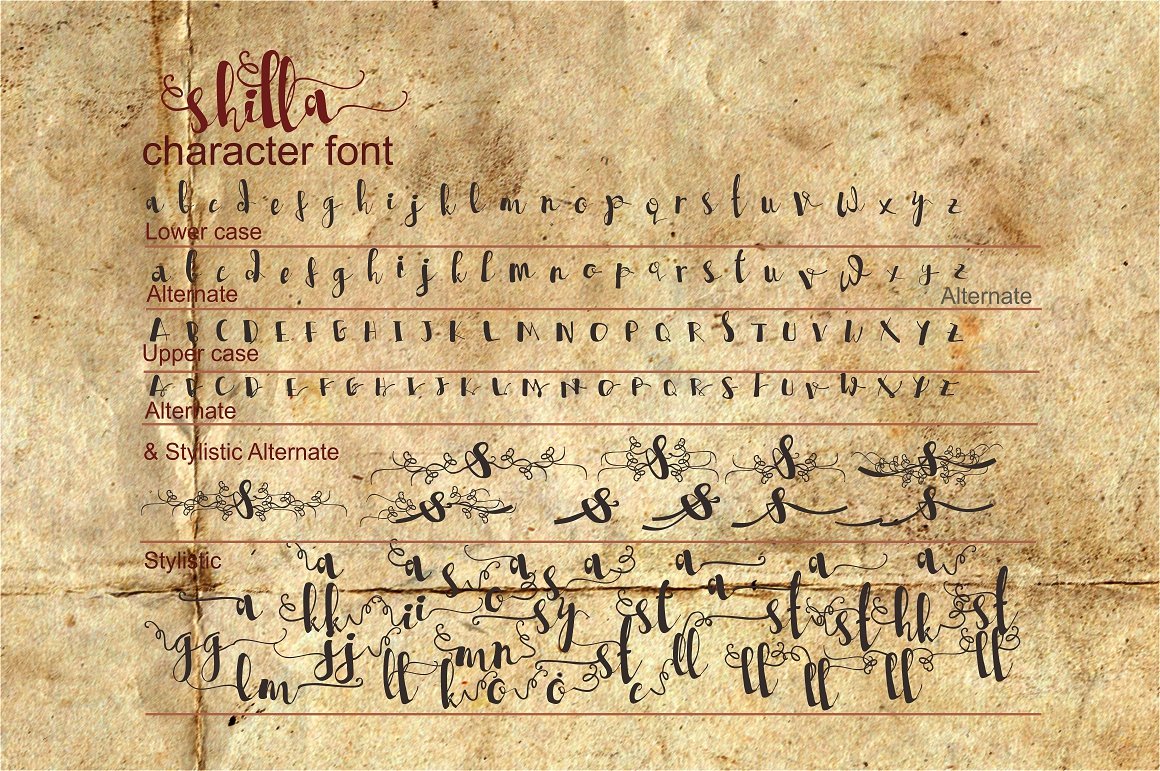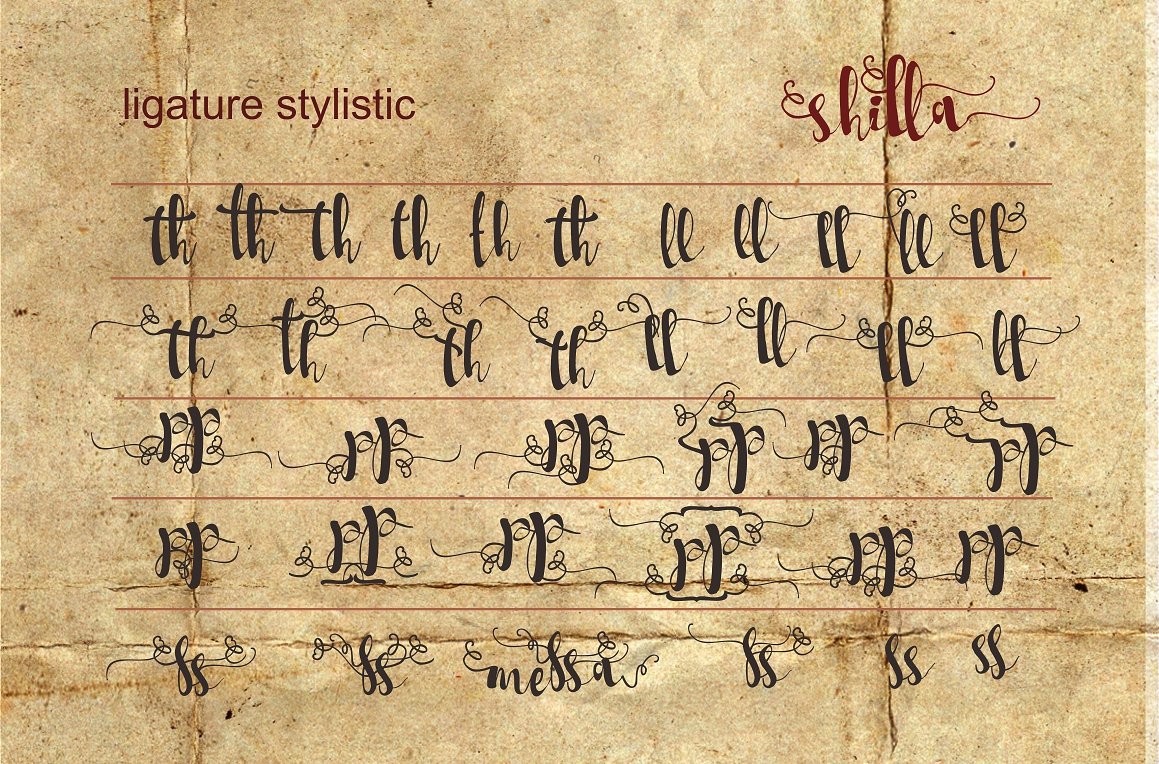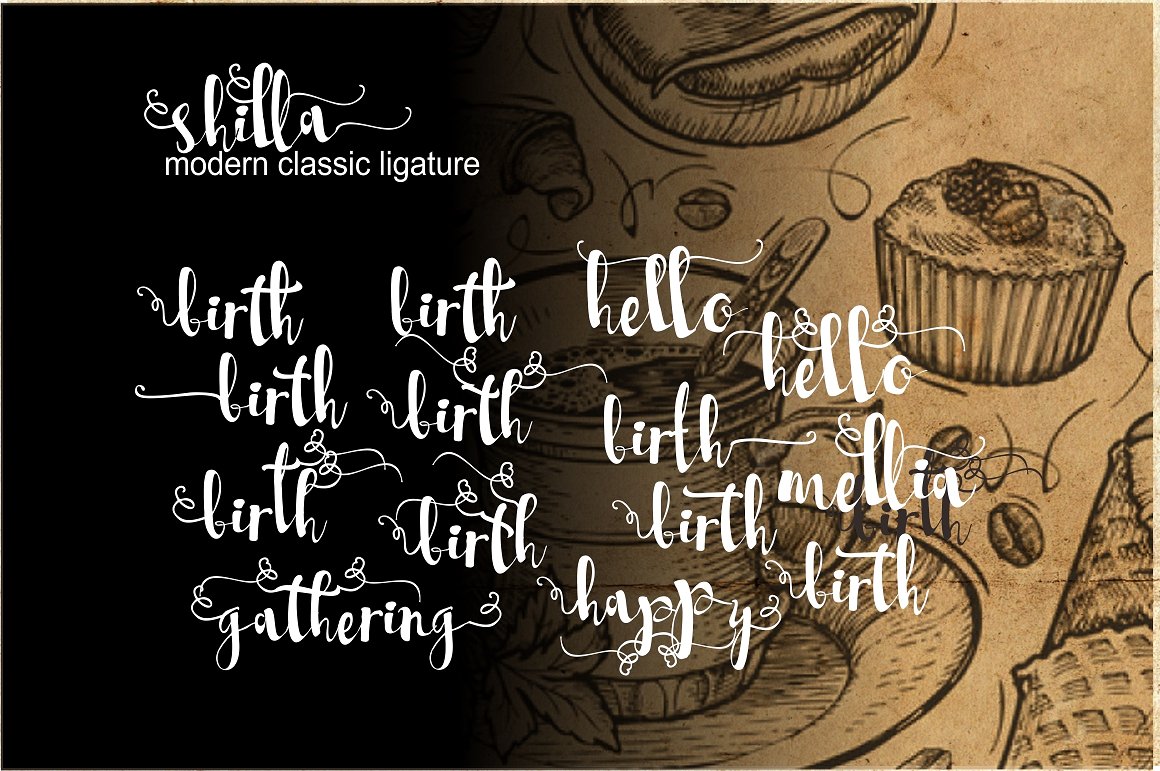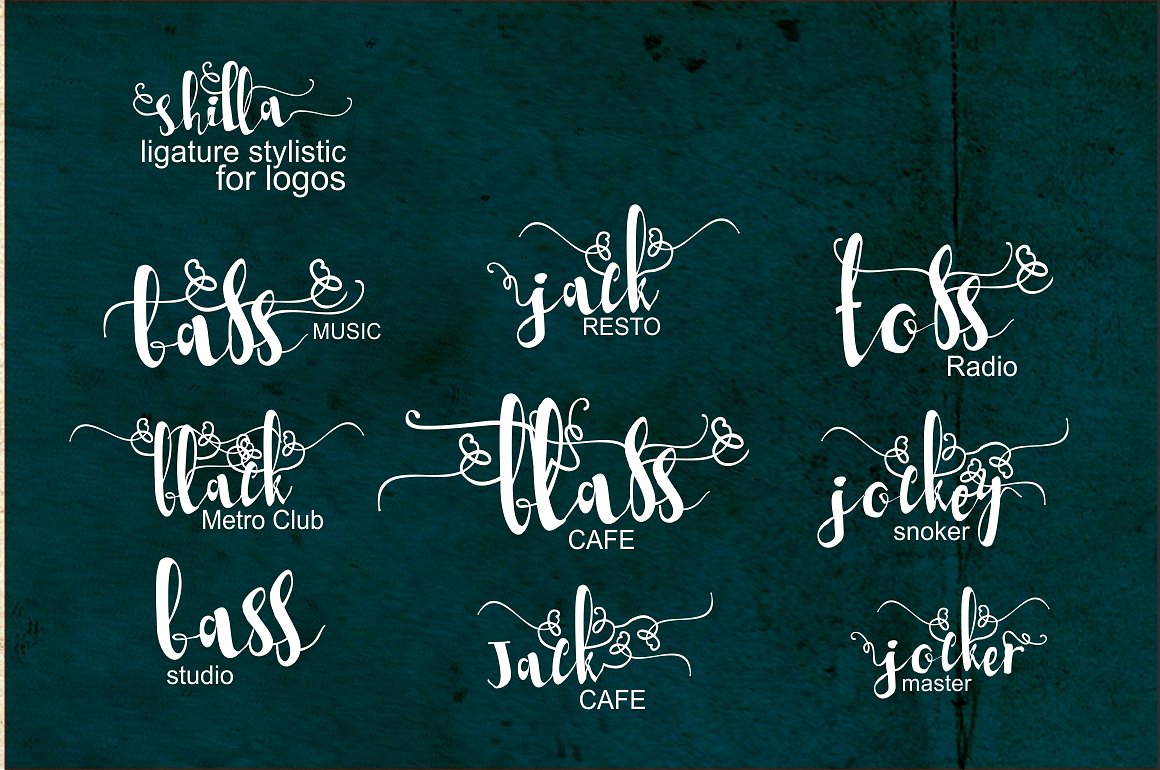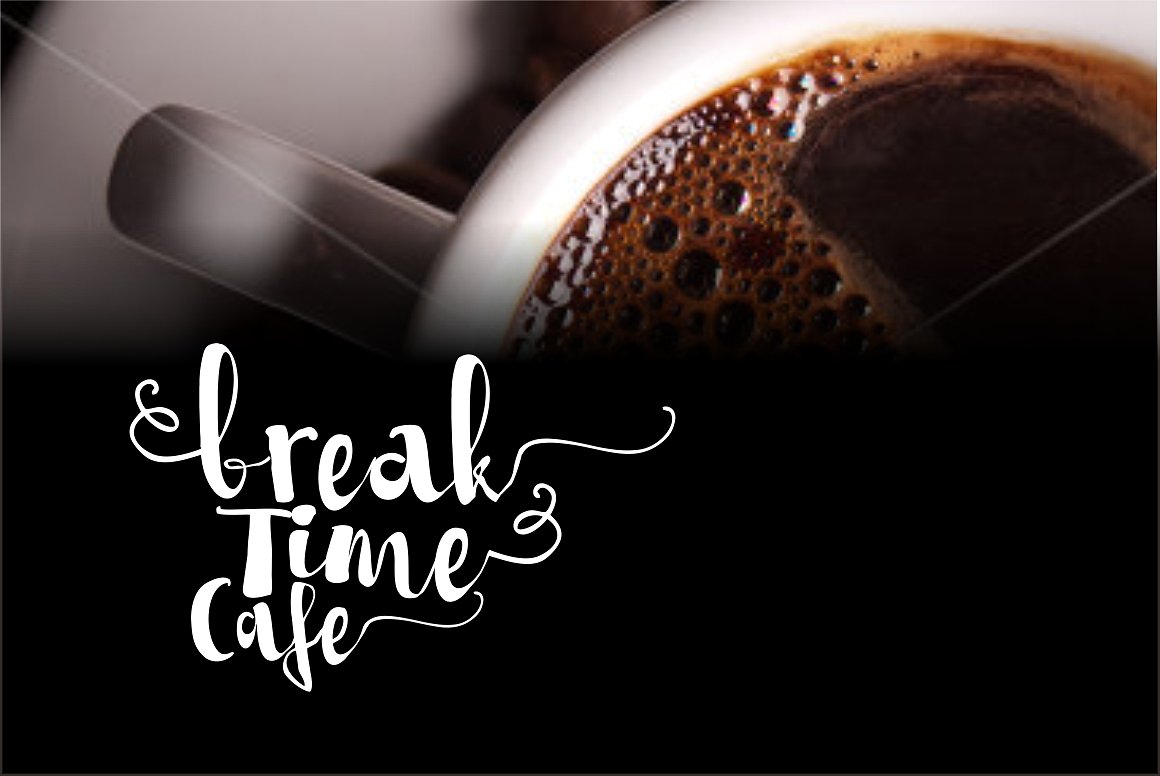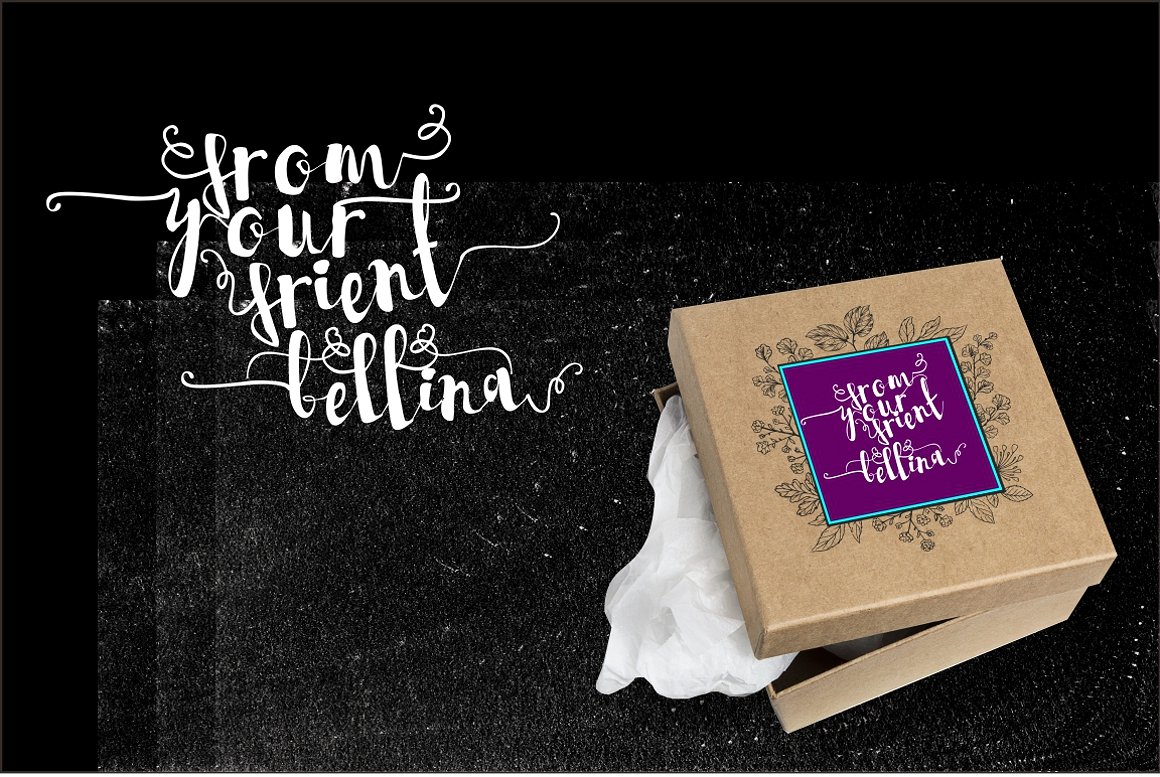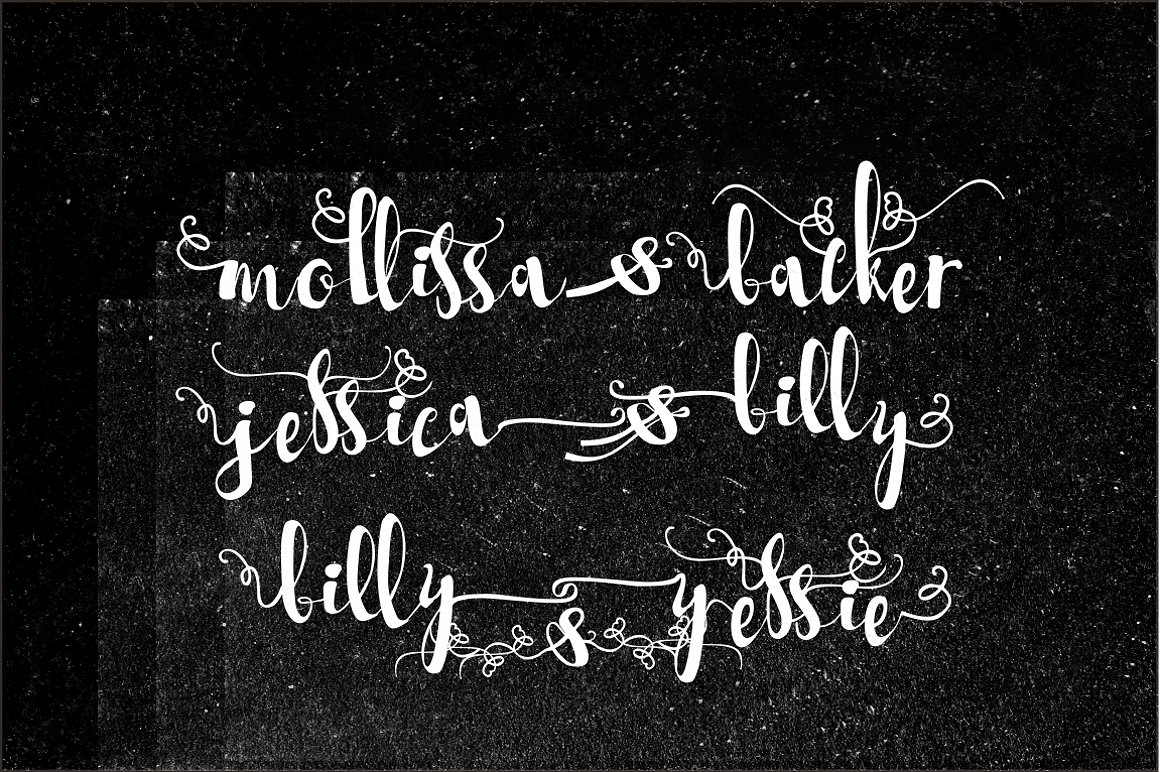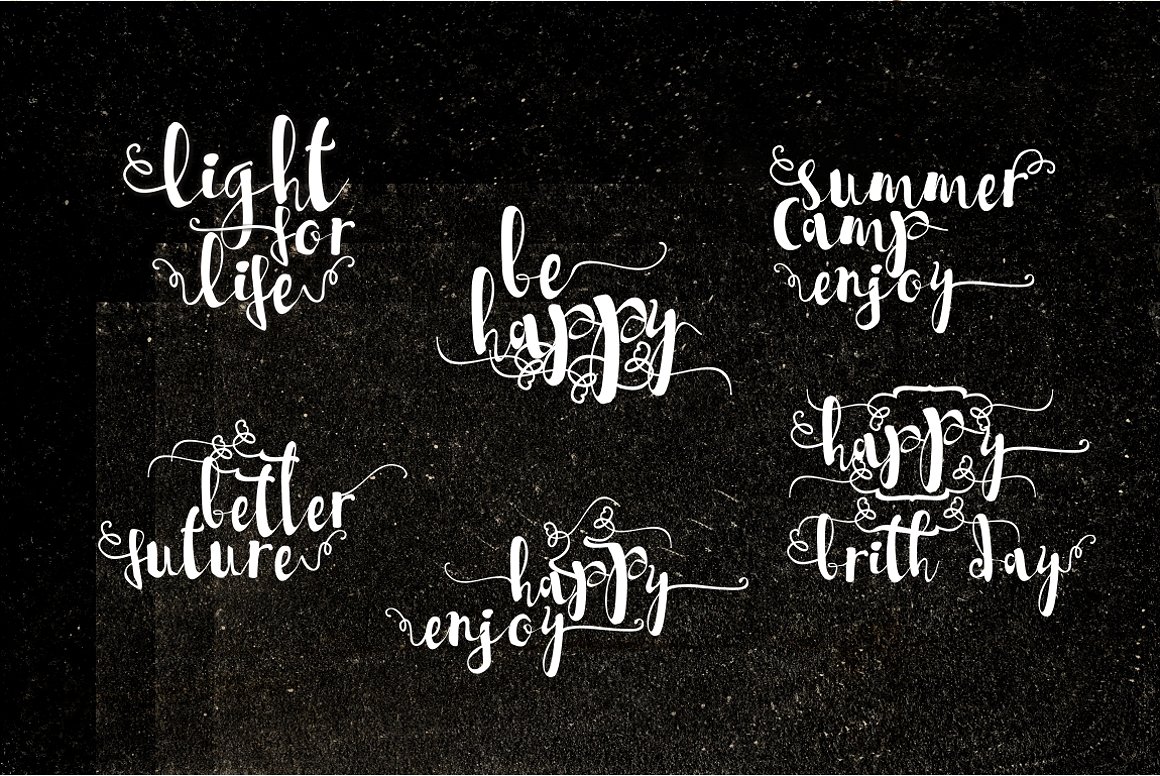
Shilla Font
About Shilla Font
Shilla combines both modern and classic taste, making it idea for headlines and displays. This is a highly creative and inspired script that will elevate any design.